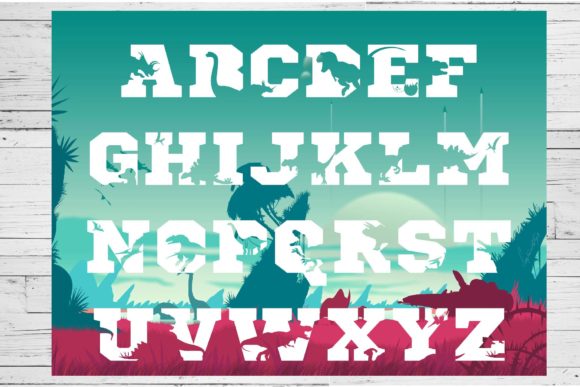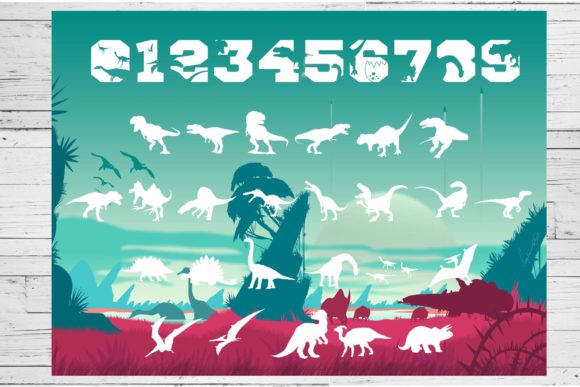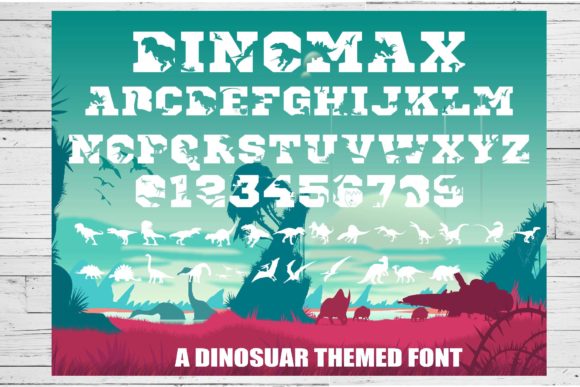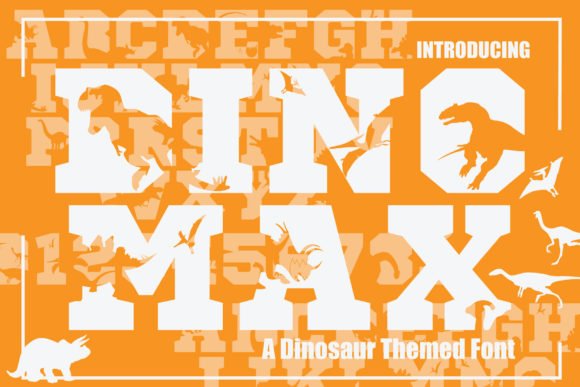
Introduction to Dinomax Font
Dinomax is a cool and fun looking decorative font.
It embodies playfulness and authenticity and is the perfect choice for any children activity or school project Add this chunky lettered font to your designs and notice how it makes them come alive.
Key Features of Dinomax Font
Why Choose Dinomax Font?